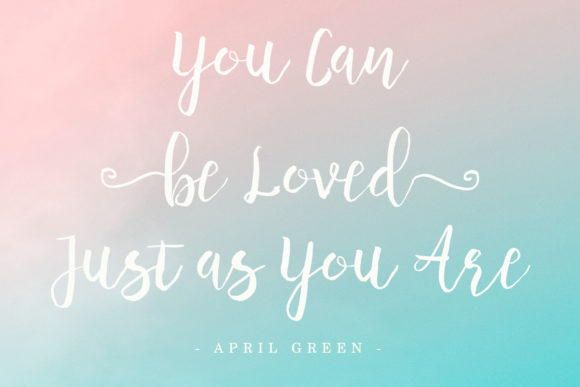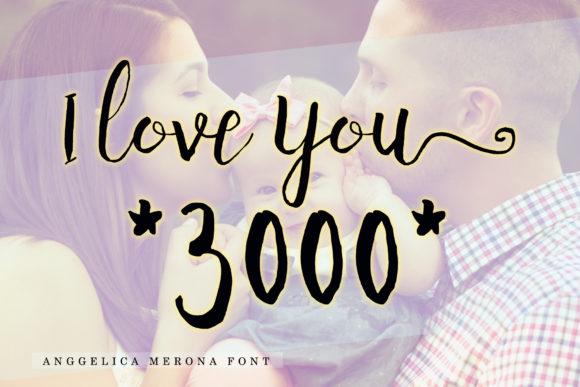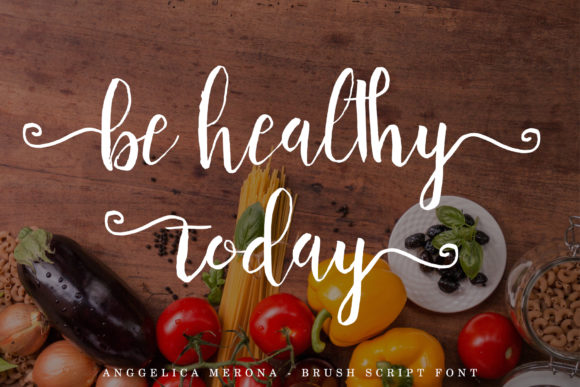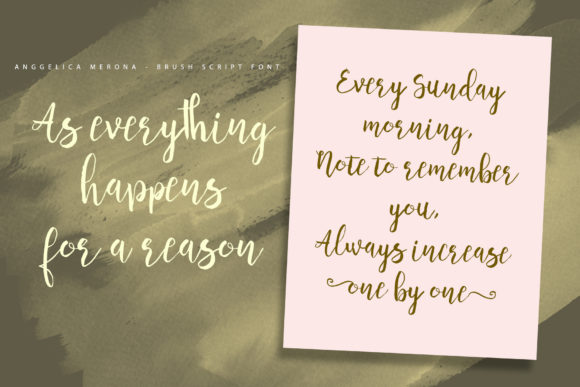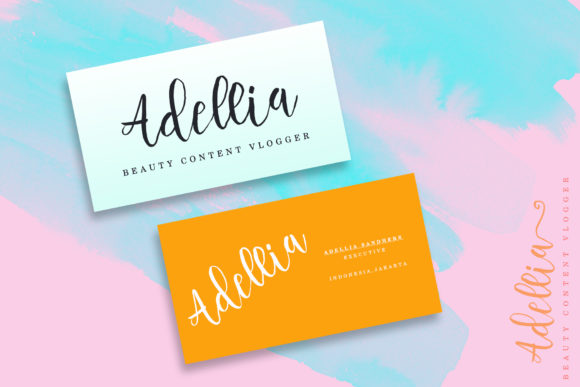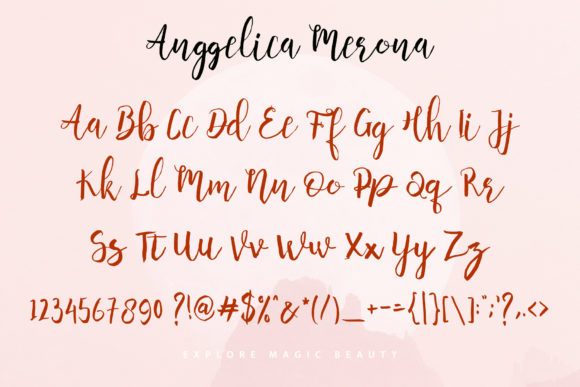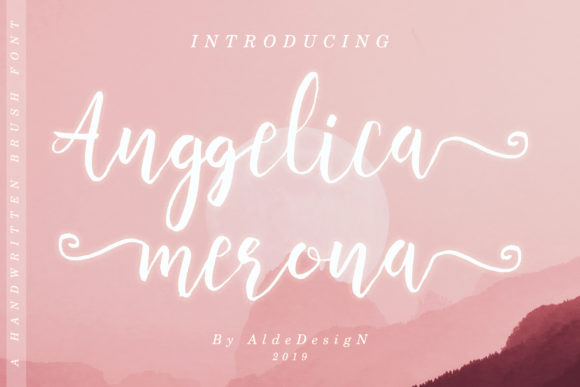
Discover the Heavenly Charm of Anggelica Merona Font
Are you a designer or crafter looking for a font that can add a touch of romance and elegance to your design projects? Look no further than Anggelica Merona Font, a beautiful and light handwritten font that is sure to inspire your creativity.
What is Anggelica Merona Font?
Anggelica Merona Font is a heavenly and light handwritten font that is designed to bring a romantic spin to any design idea. With its amazing characters and elegant strokes, this font is perfect for a wide range of design projects, from wedding invitations and stationery to branding and advertising materials.
Key Features of Anggelica Merona Font
- Handwritten style: Anggelica Merona Font has a beautiful, handwritten style that is both elegant and approachable.
- Light and airy: The font has a light and airy feel that makes it perfect for designs that require a touch of whimsy and romance.
- Amazing characters: The font includes a wide range of amazing characters, including uppercase and lowercase letters, numbers, and punctuation marks.
- Romantic spin: Anggelica Merona Font is designed to add a romantic spin to any design idea, making it perfect for wedding invitations, anniversary cards, and other romantic designs.
How to Use Anggelica Merona Font in Your Designs
Anggelica Merona Font is a versatile font that can be used in a wide range of design projects. Here are a few ideas to get you started:
- Wedding invitations: Use Anggelica Merona Font to create beautiful and elegant wedding invitations that set the tone for a romantic and memorable wedding day.
- Stationery: Add a touch of elegance to your stationery designs with Anggelica Merona Font, perfect for business cards, letterheads, and more.
- Branding and advertising: Use Anggelica Merona Font to create eye-catching branding and advertising materials, such as logos, brochures, and flyers.
- Crafting projects: Anggelica Merona Font is also perfect for crafters who want to add a personal touch to their projects, such as handmade cards, scrapbooking, and more.
Tips for Getting the Most Out of Anggelica Merona Font
Here are a few tips for getting the most out of Anggelica Merona Font:
- Experiment with different sizes and colors: Anggelica Merona Font looks great in a variety of sizes and colors, so don’t be afraid to experiment and find the perfect combination for your design.
- Pair with other fonts: Anggelica Merona Font pairs well with other fonts, so try combining it with a bold font for a striking contrast.
- Use it for headlines and body text: Anggelica Merona Font is versatile enough to be used for both headlines and body text, making it a great choice for a wide range of design projects.
Anggelica Merona Font is a beautiful and elegant handwritten font that is perfect for designers and crafters who want to add a touch of romance and whimsy to their design projects. With its amazing characters and light, airy feel, this font is sure to inspire your creativity and help you create stunning designs that will leave a lasting impression.